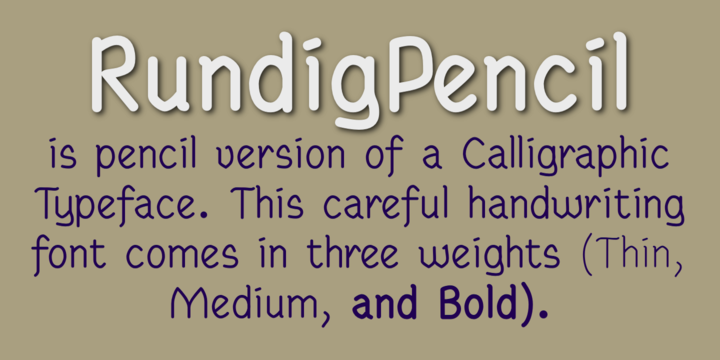
RundigPencil has a semi-informal but very neat and rigidly upright handwritten look. It comes in three weights. The calligraphic version of the font is Rundigsburg.